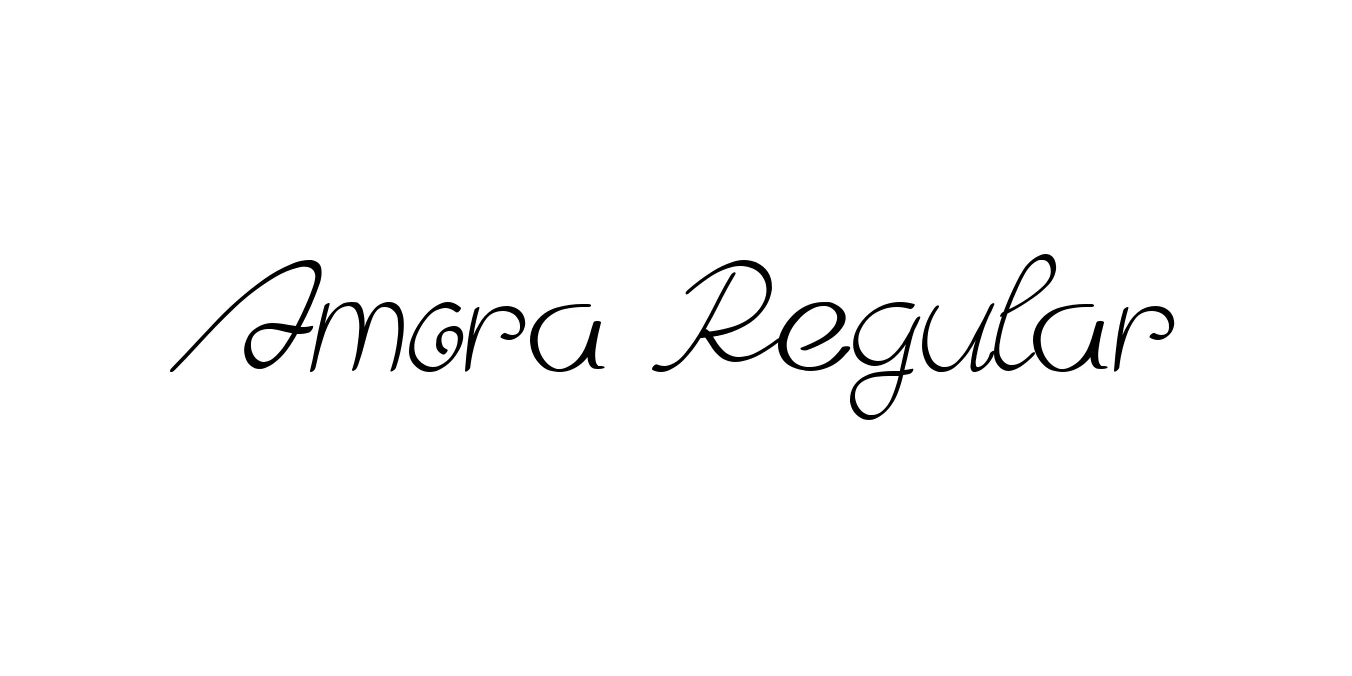
Amora Regular
Designed by Creatype Studio
Amora Regular is a modern calligraphy typeface that exudes elegance and sophistication. Developed by Creatype Studio, this font features fluid, hand-drawn strokes that seamlessly blend traditional penmanship with contemporary design aesthetics. Its graceful curves and rhythmic flow make it a standout choice for designers looking to add a personal, high-end touch to their typographic work.
The font is packed with OpenType features, including beautiful ligatures and stylistic alternates that provide versatility in various design contexts. Whether you are crafting a delicate wedding invitation or a bold fashion logo, Amora Regular ensures a professional and romantic finish that captures the viewer's attention instantly.
Amora Regular Best Uses
Exquisite for invitations, menus, and place cards.
Perfect for luxury fashion, beauty, and lifestyle logos.
Adds an aesthetic, hand-lettered feel to quotes and posts.
Ideal for sophisticated magazine headers and pull quotes.